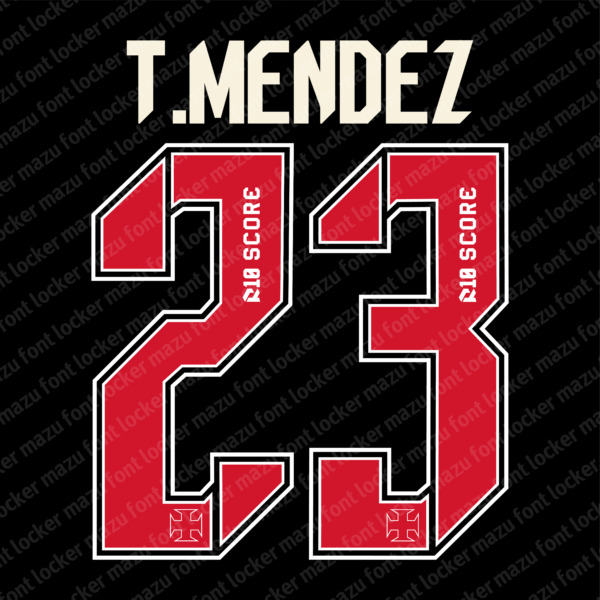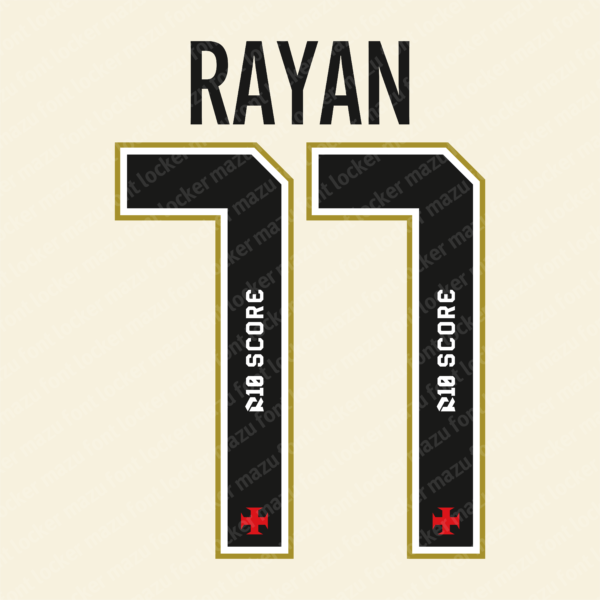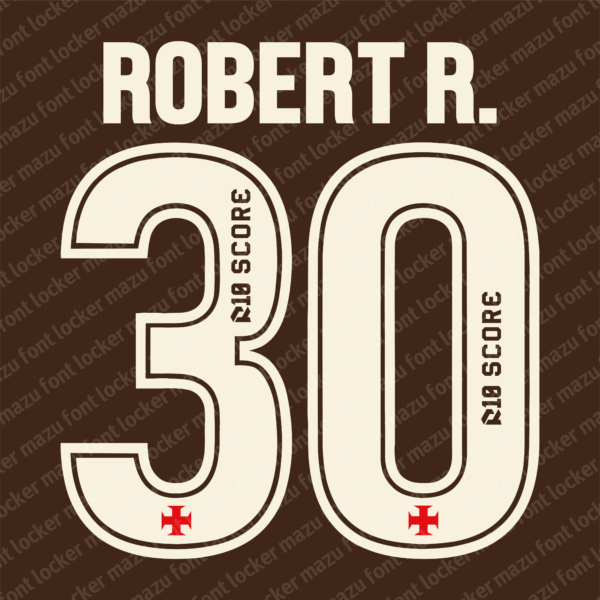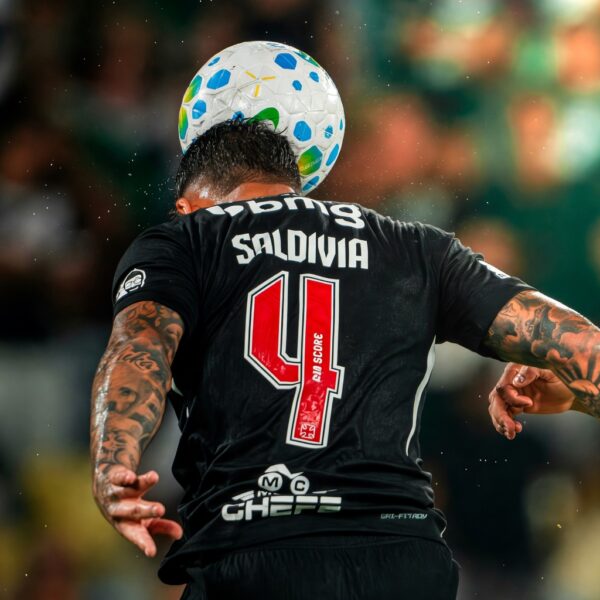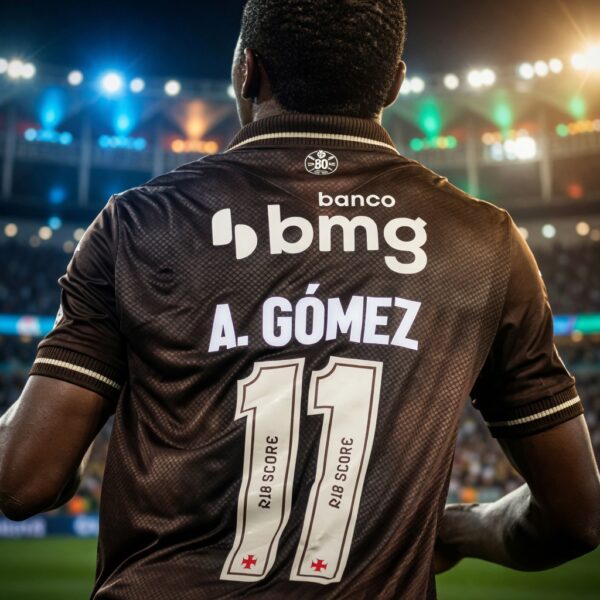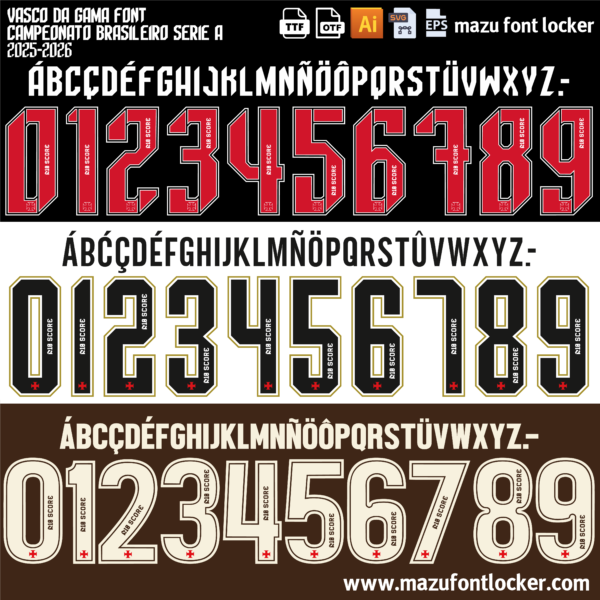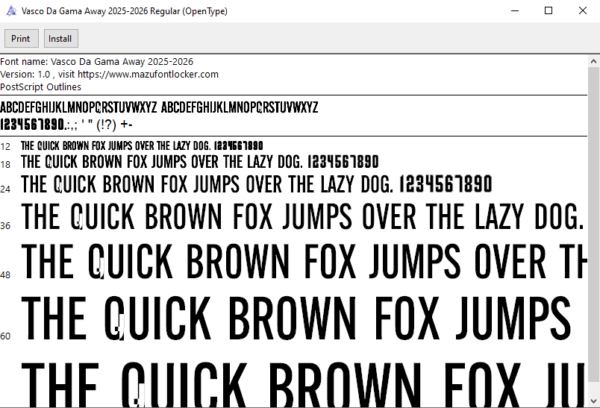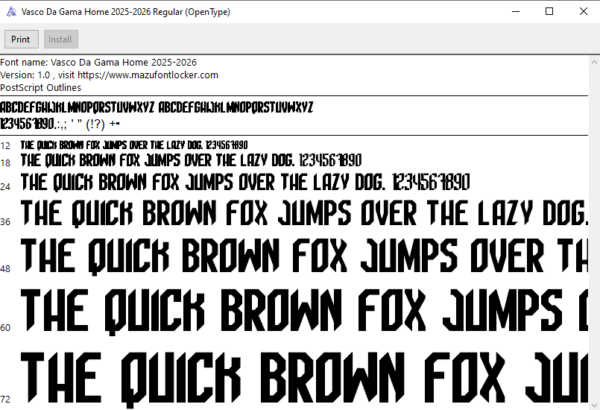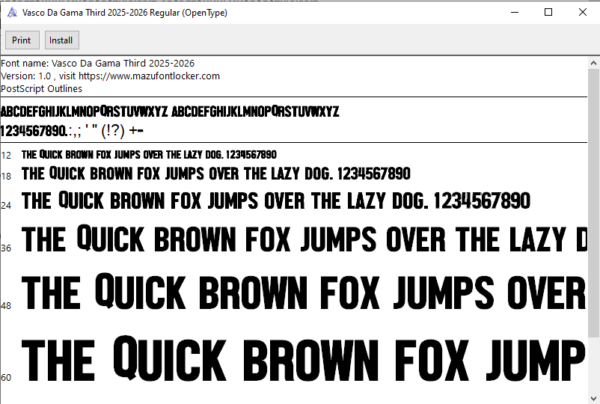
Vasco Da Gama 2025-2026 Font Vector – Epic Mighty Gigante Masterpiece
Download the Vasco Da Gama 2025-2026 Font and experience the true power of Brazilian football passion. This premium, high-precision football jersey font vector is expertly crafted to capture the fearless identity, rich heritage, and explosive spirit of Vasco Da Gama’s dominant 2025-2026 campaign.
Designed with razor-sharp precision, the Vasco Da Gama 2025-2026 Font perfectly embodies the club’s iconic black and white colours, delivering a bold, aggressive, and commanding visual presence that radiates pure Gigante da Colina pride. Every letter and number has been meticulously recreated to reflect the fighting mentality, determination, and legendary passion of the Vasco faithful both on and off the pitch.
Unleash the colossal spirit of one of Brazil’s biggest clubs with the Vasco Da Gama 2025-2026 Font.
Vasco Da Gama 2025-2026 Font Vector
The Vasco Da Gama 2025-2026 Font is a premium, high-precision football jersey font vector meticulously engineered to capture the fearless energy, explosive passion, and electrifying identity of Vasco Da Gama’s dominant 2025-2026 campaign.
Inspired by the mighty Gigante da Colina and their iconic, high-intensity performances throughout the 2025-2026 season, this font unleashes a bold, aggressive, and powerful presence that radiates unbreakable Vasco pride, rich heritage, and unstoppable Brazilian fighting spirit. Every letter and number has been painstakingly recreated with razor-sharp precision to embody the vibrant black and white identity, relentless determination, and glorious legacy that makes Vasco Da Gama one of the most passionate and feared clubs in South American football.
Feel the fire of São Januário. Ignite the passion. Unleash the legendary spirit of the Gigante da Colina and the unstoppable power of Vasco Da Gama 2025-2026.
🔥 Vasco Da Gama 2025-2026 Font Features
• Authentic 2025-2026 Vasco Da Gama jersey lettering style
The authentic lettering style helps recreate the classic look of the Vasco Da Gama 2025-2026 kit with professional accuracy.
Unlike generic jersey fonts, this set is designed with a strong focus on authenticity and accuracy. Every detail is based on the original match lettering style used during the 2025-2026, helping designers and collectors create realistic football shirt designs.